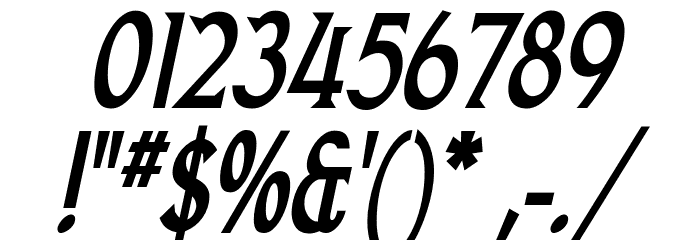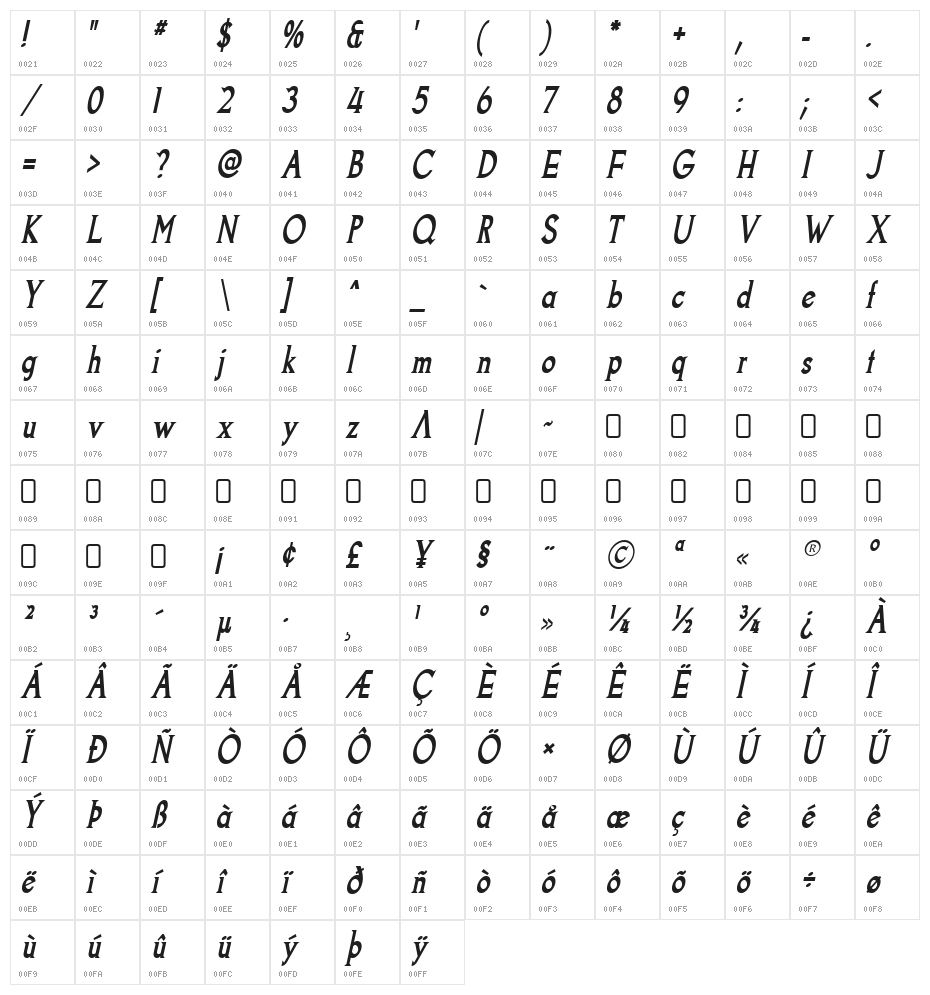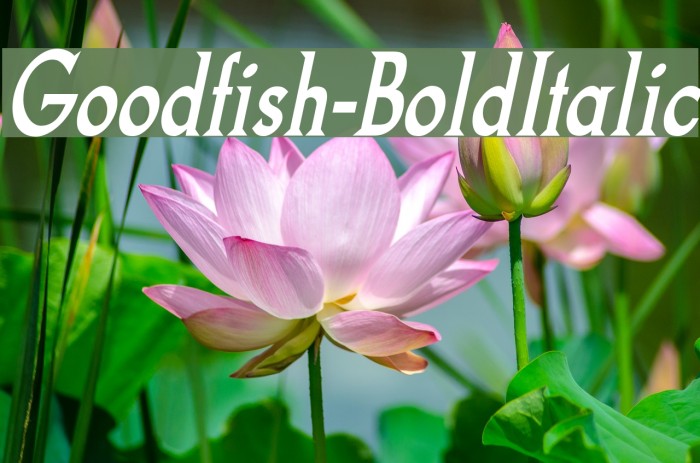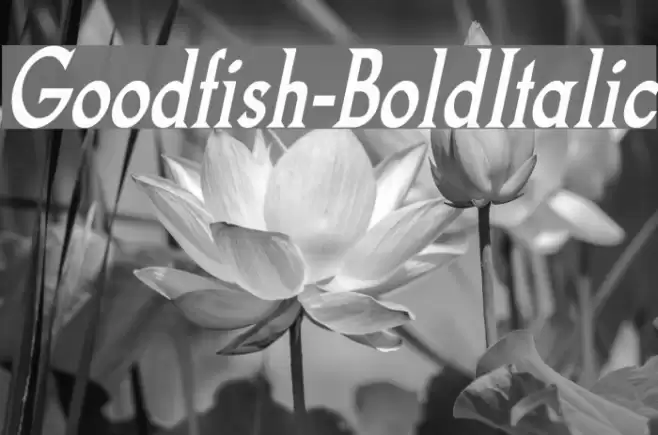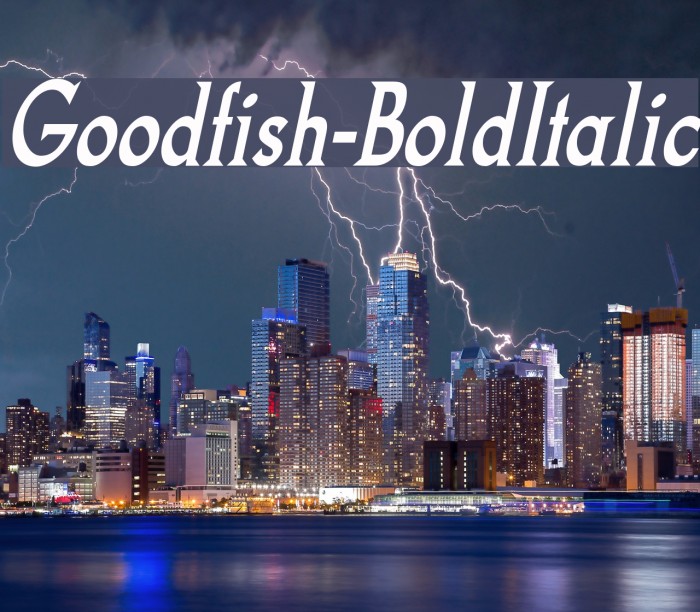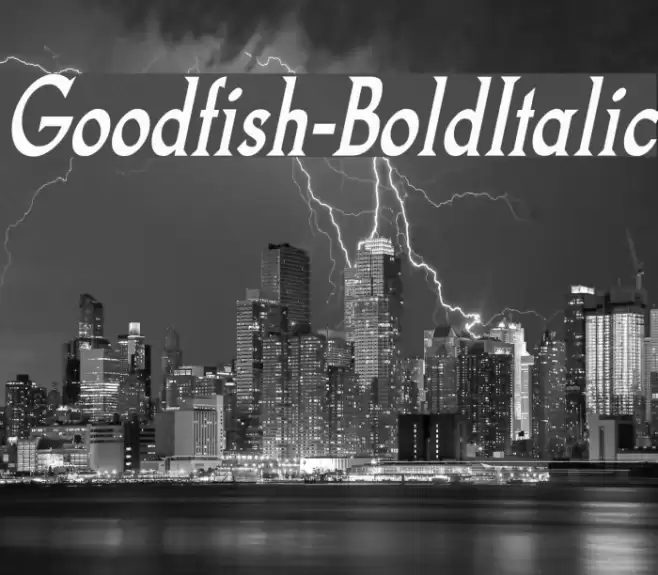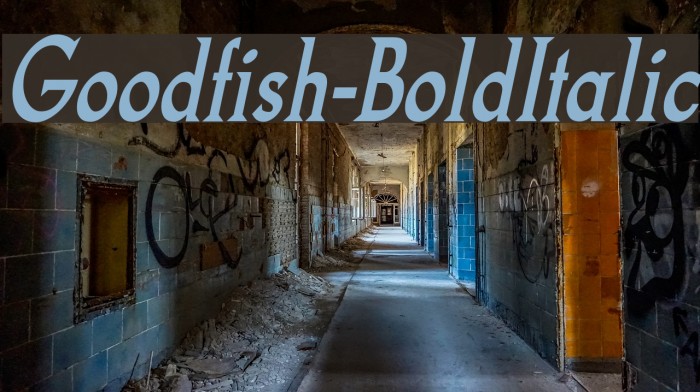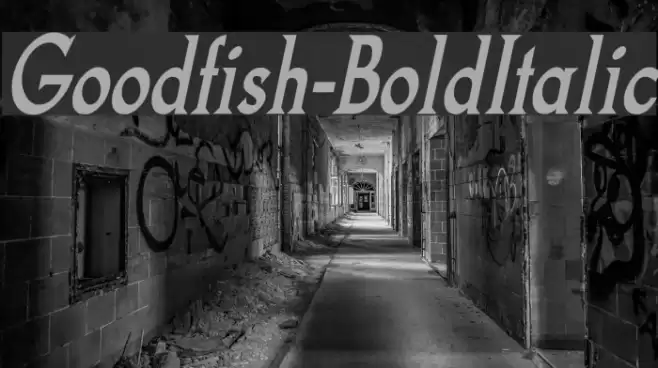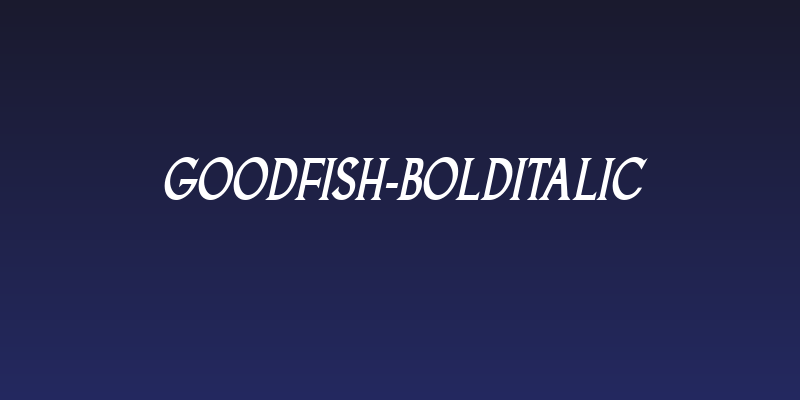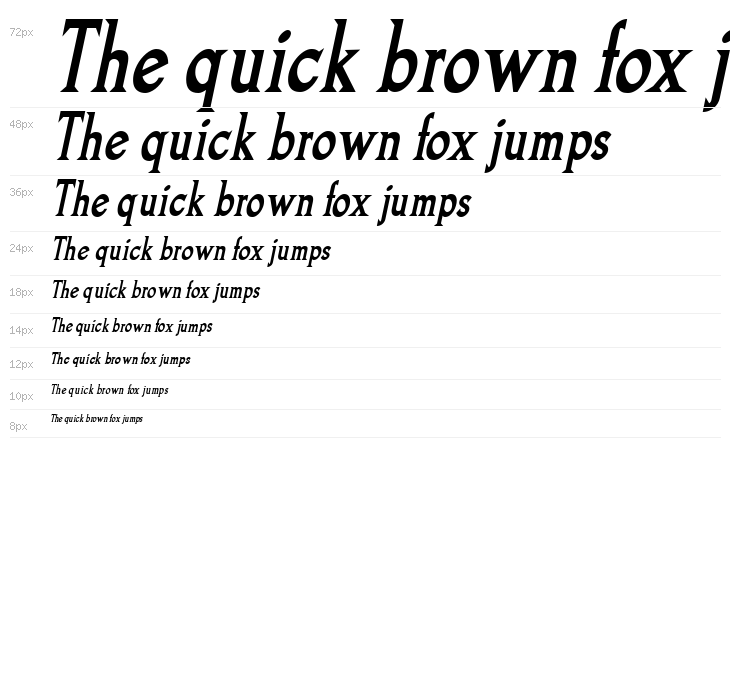
Goodfish-BoldItalic Font
Goodfish-BoldItalic Description
This font exhibits a bold and italicized style, characterized by its dynamic and forward-leaning posture. The strokes are thick and consistent, providing a strong visual impact. The serifs are pronounced, adding a touch of elegance and tradition to the overall appearance. The uppercase letters are tall and commanding, while the lowercase letters maintain a balanced proportion, ensuring readability. The numerals are clear and distinct, matching the boldness of the alphabet. Special characters are well-integrated, maintaining the font's cohesive style. This font is ideal for making statements, with its bold presence and classic undertones.